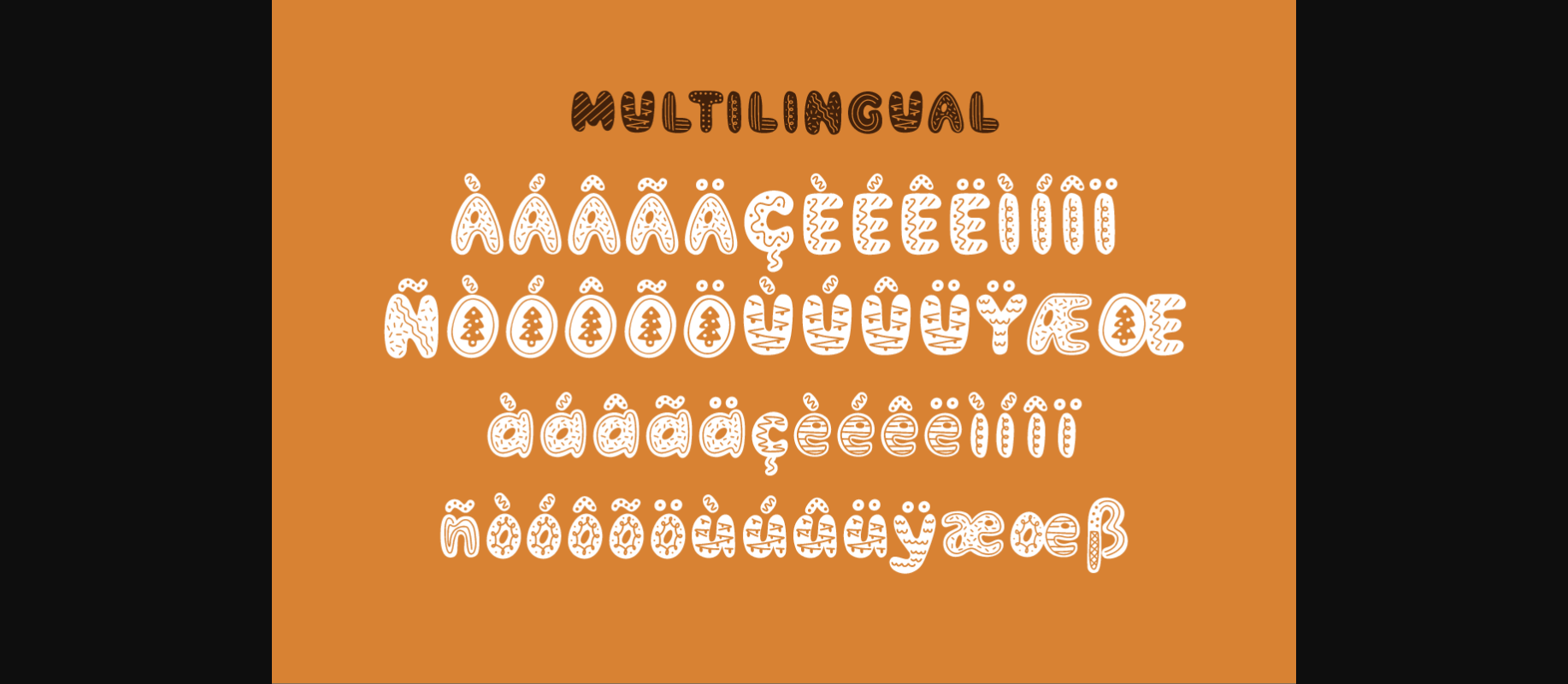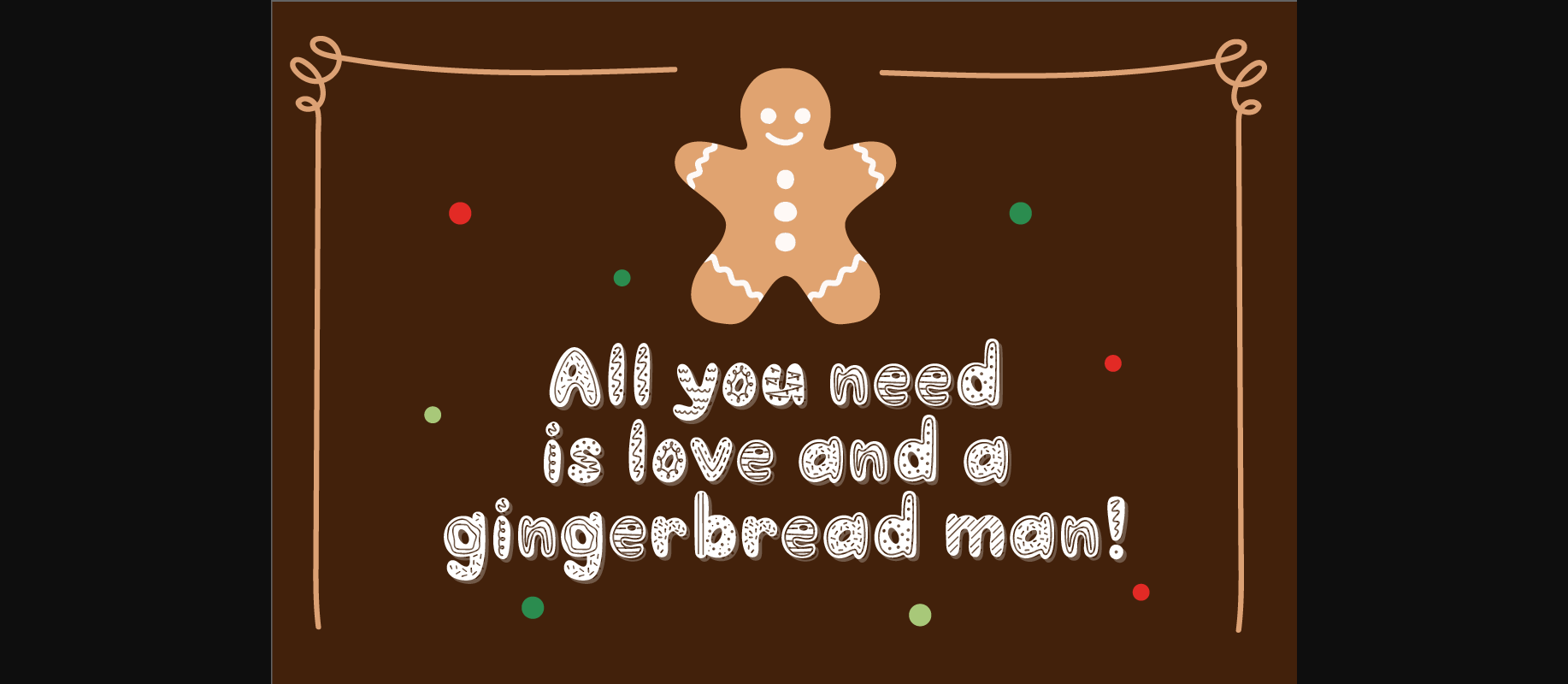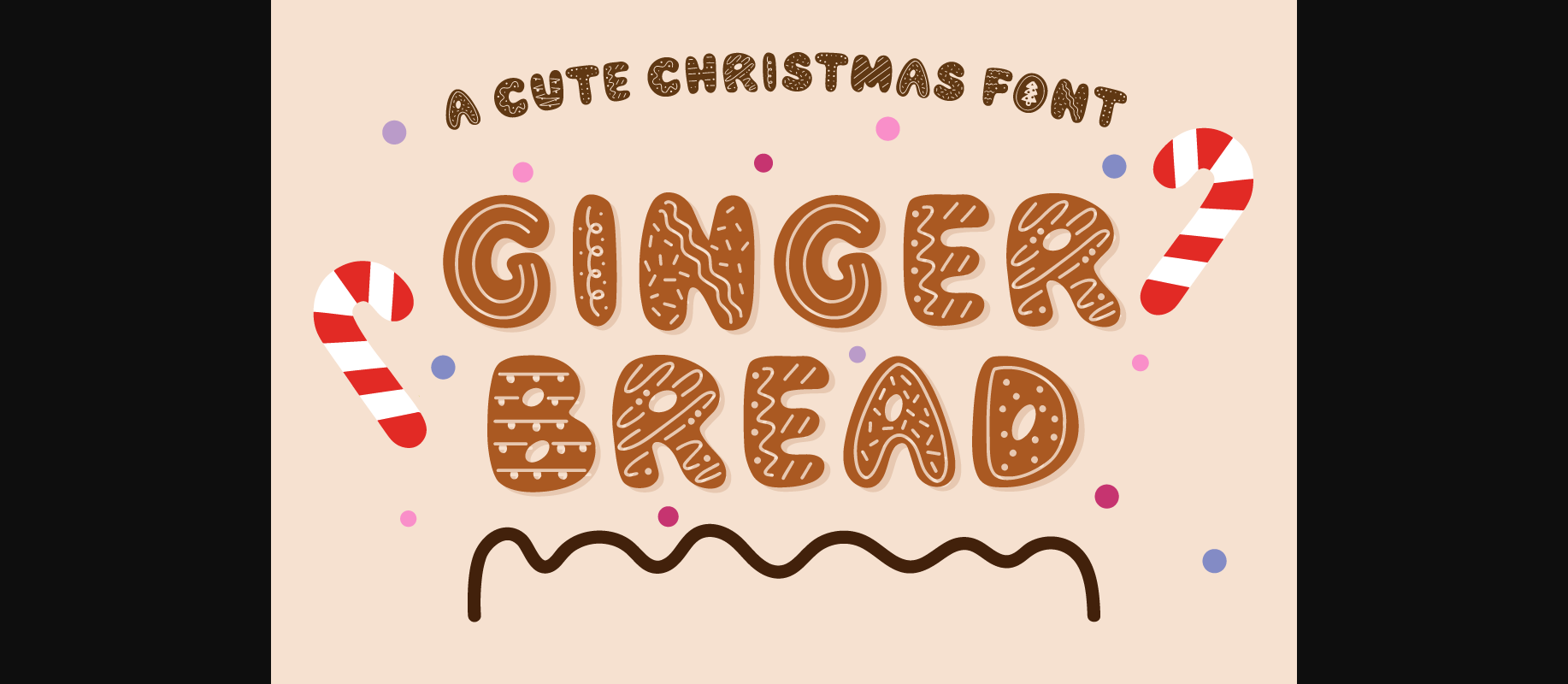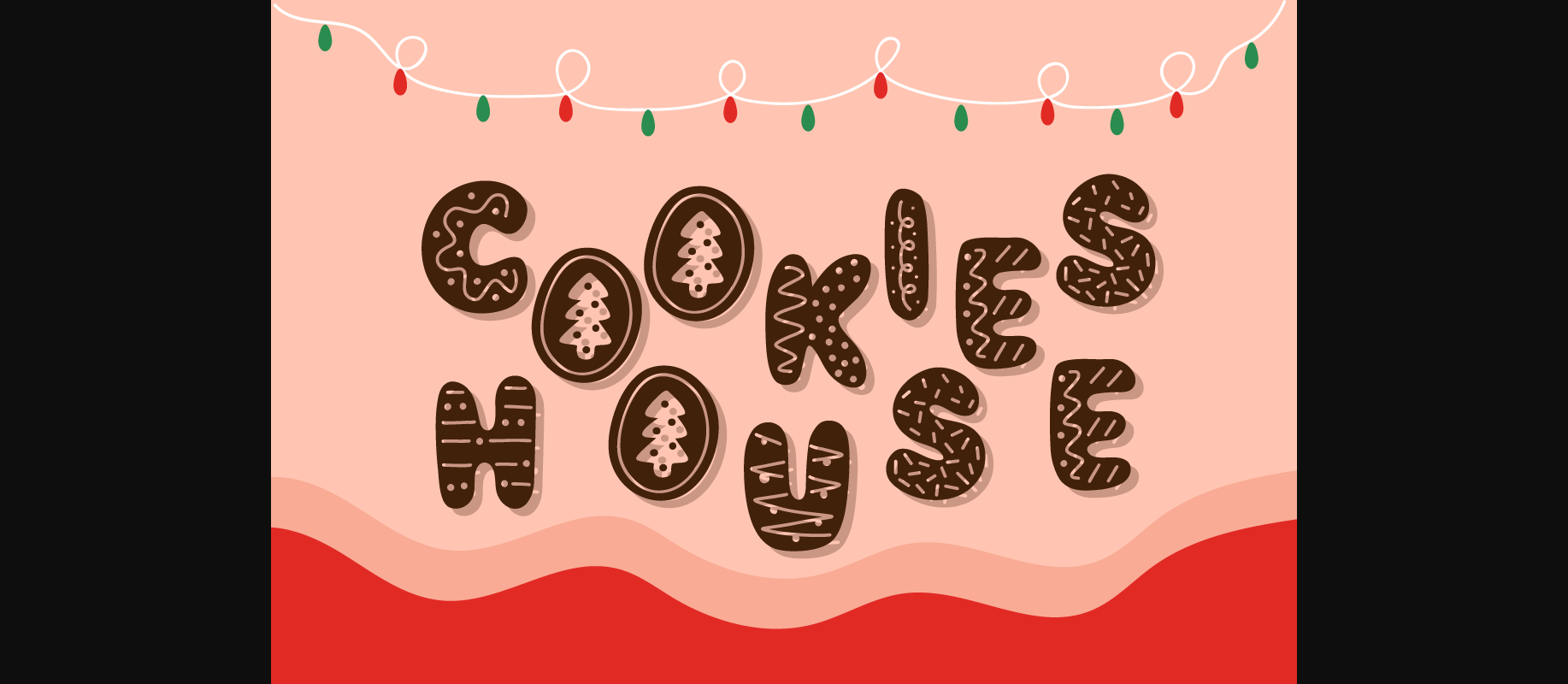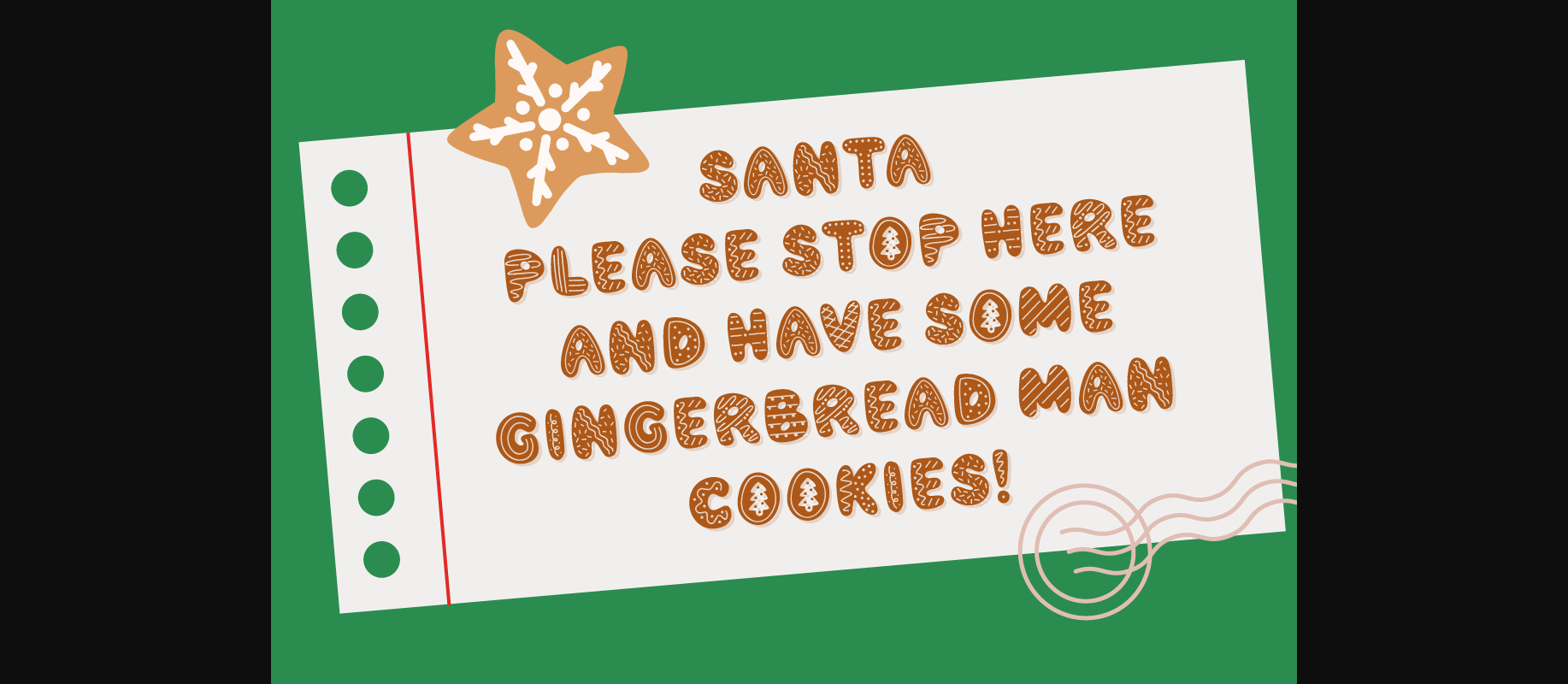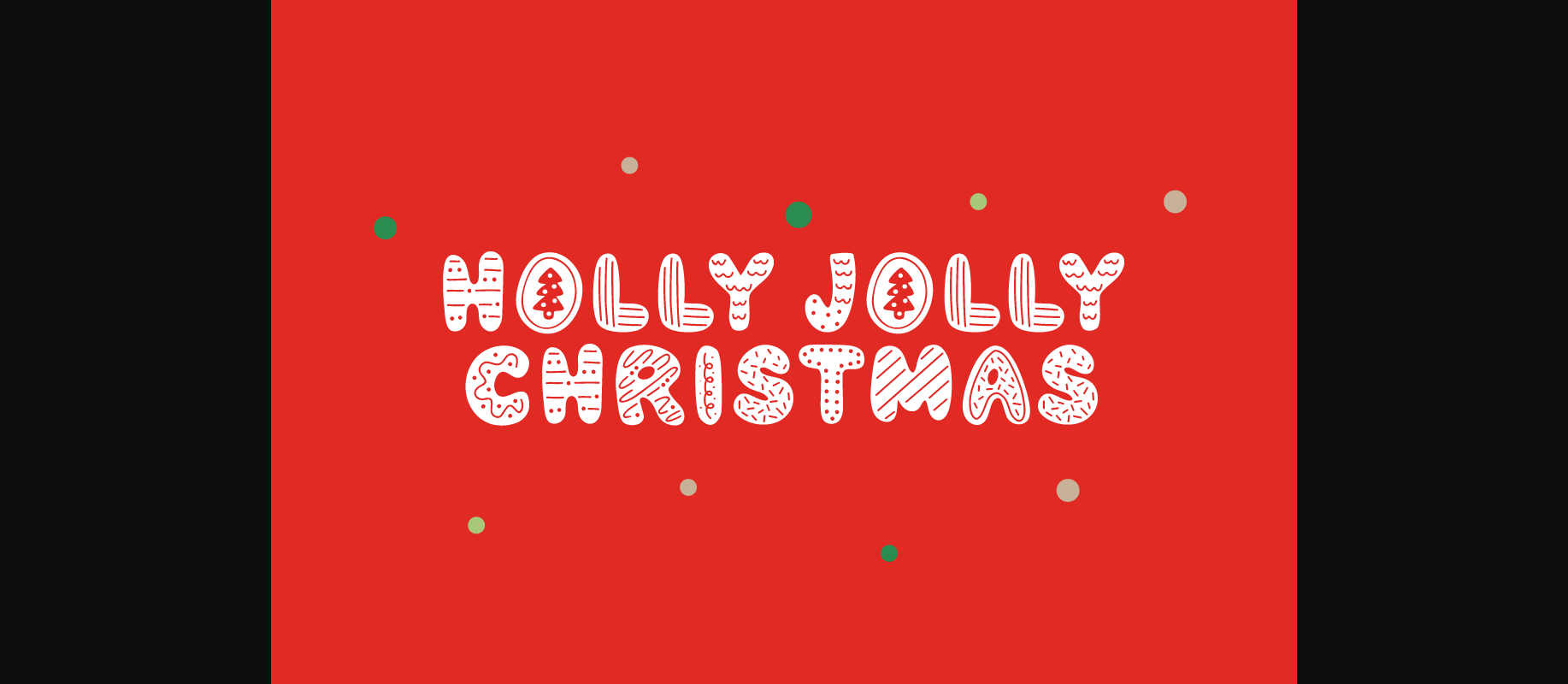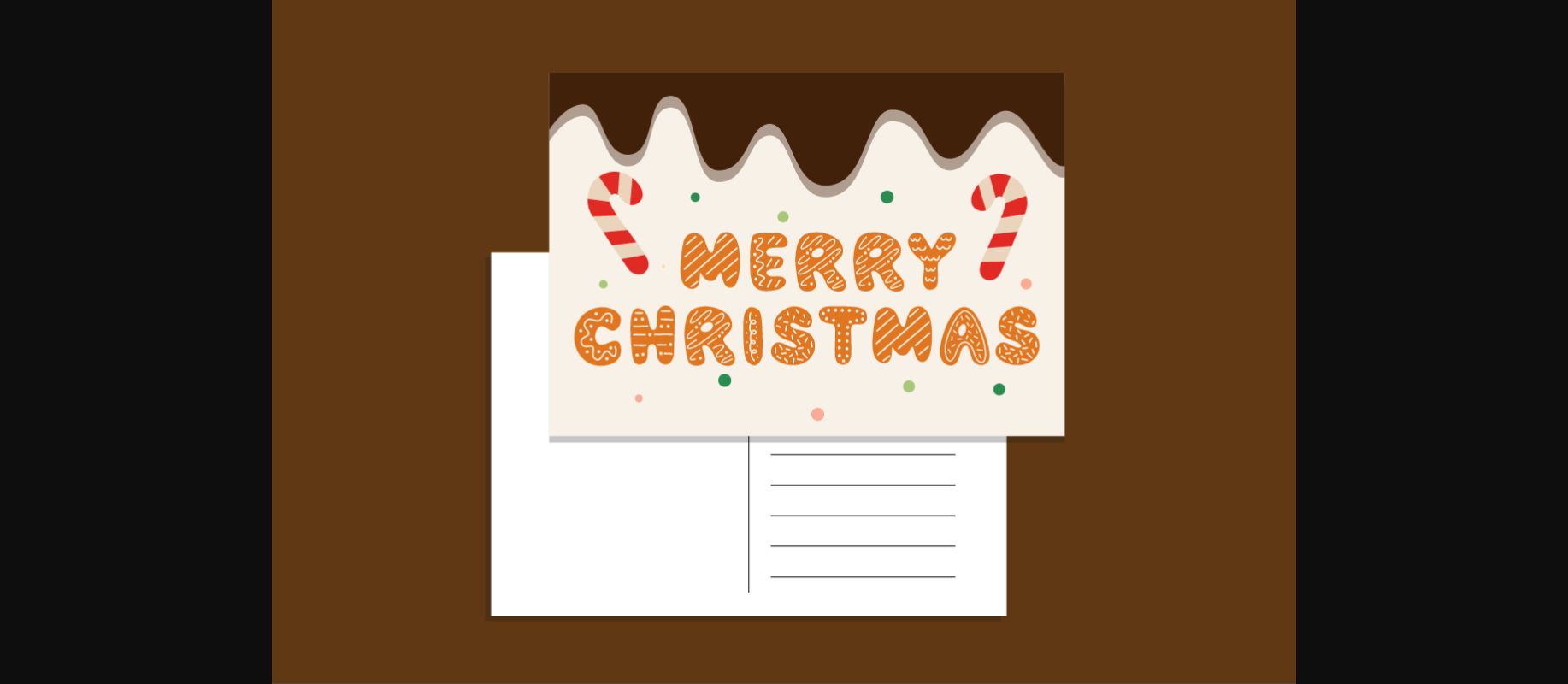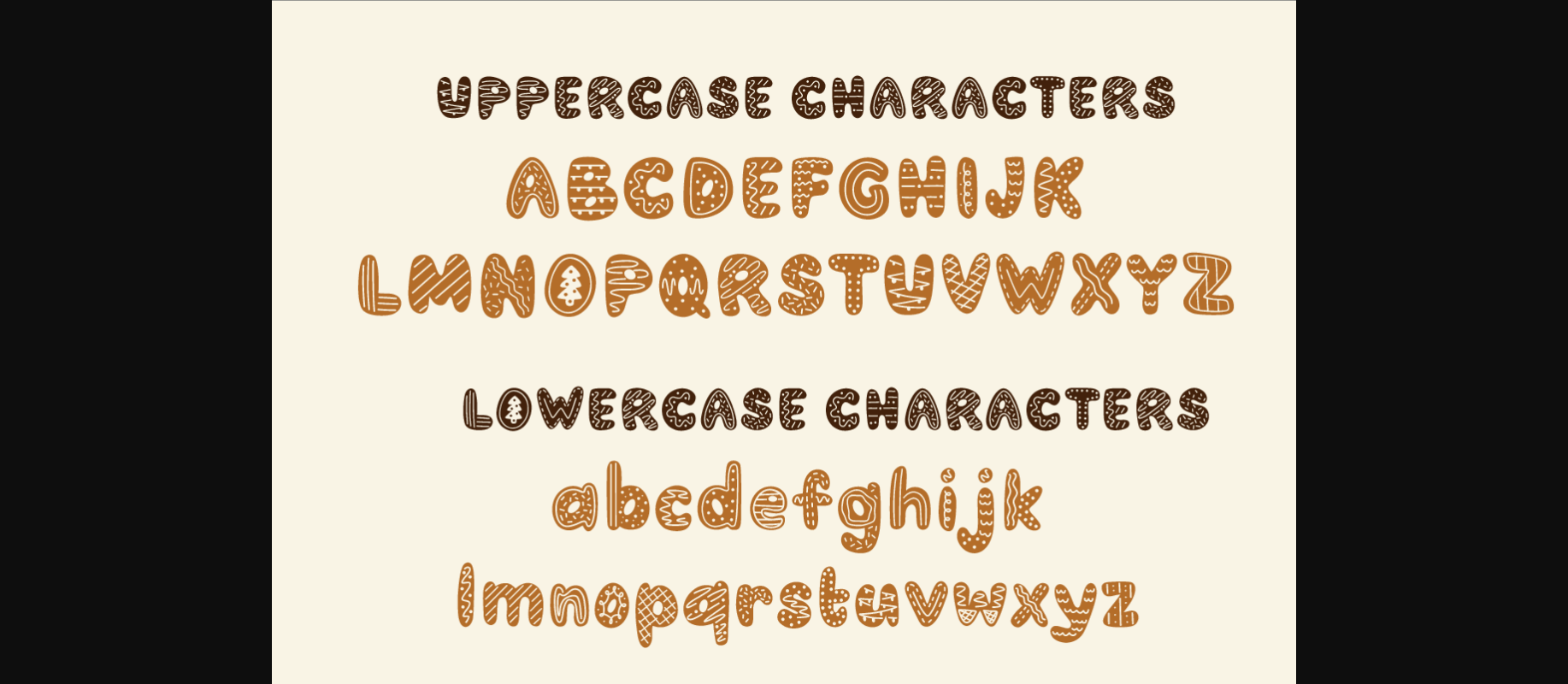
Gingerbread Font
About Gingerbread Font
Gingerbread is a cute Christmas font with gingerbread cookies style. Perfect for circuit projects, shirts, retro designs, Christmas invitations, mugs, stickers, playful quotes, creating posters, logos, greeting cards, packaging, decorating the illustration and so much more!